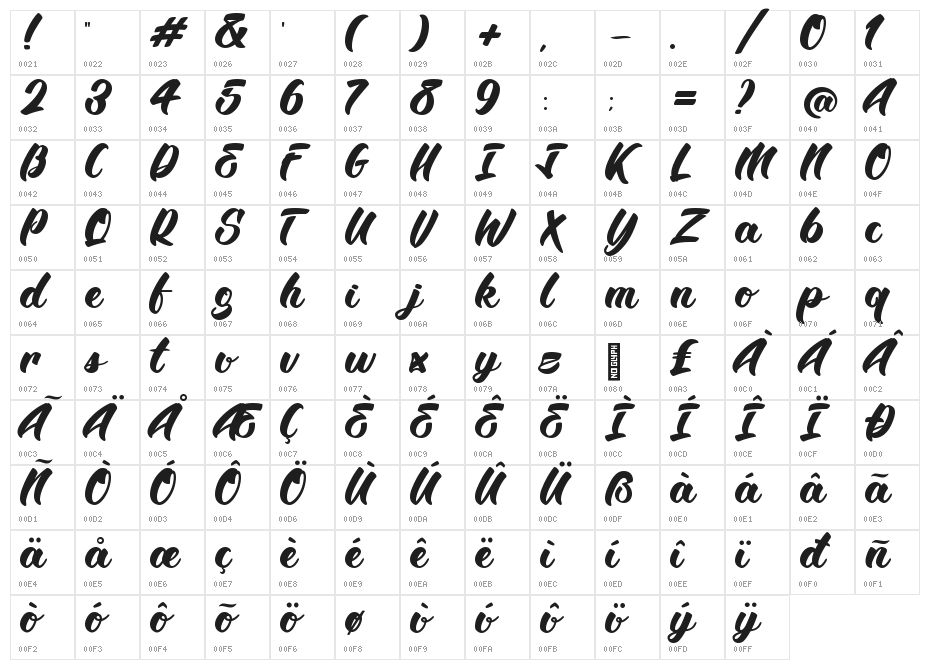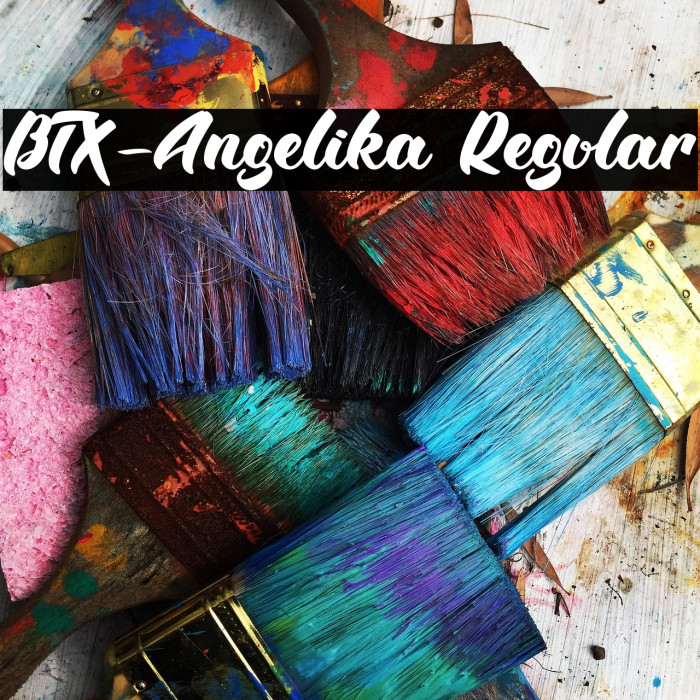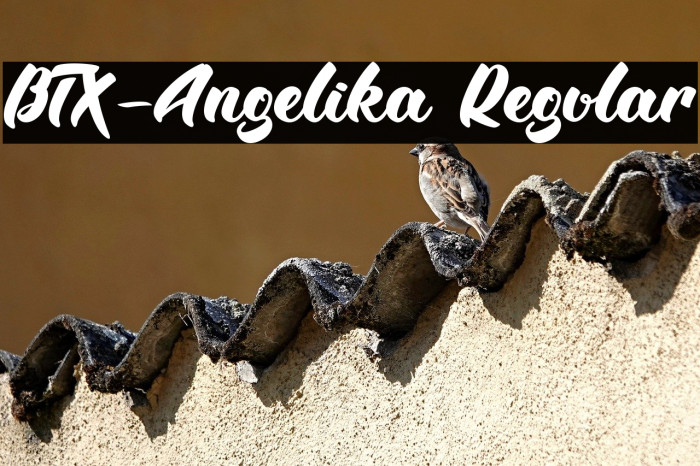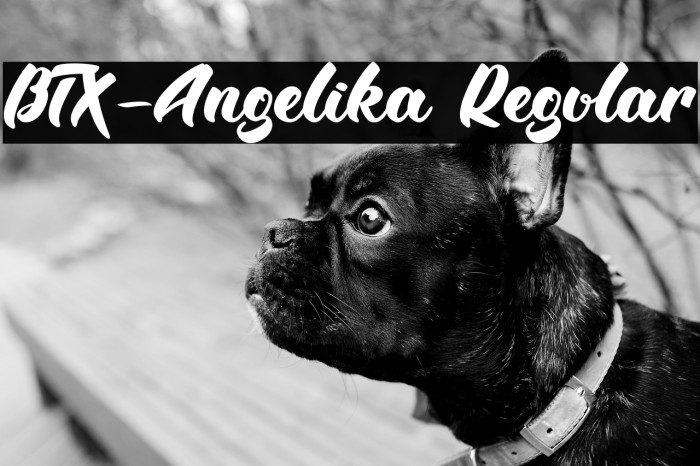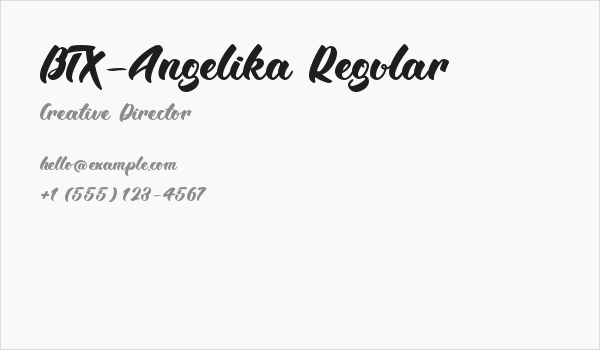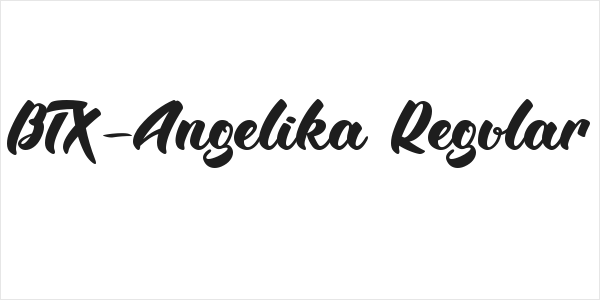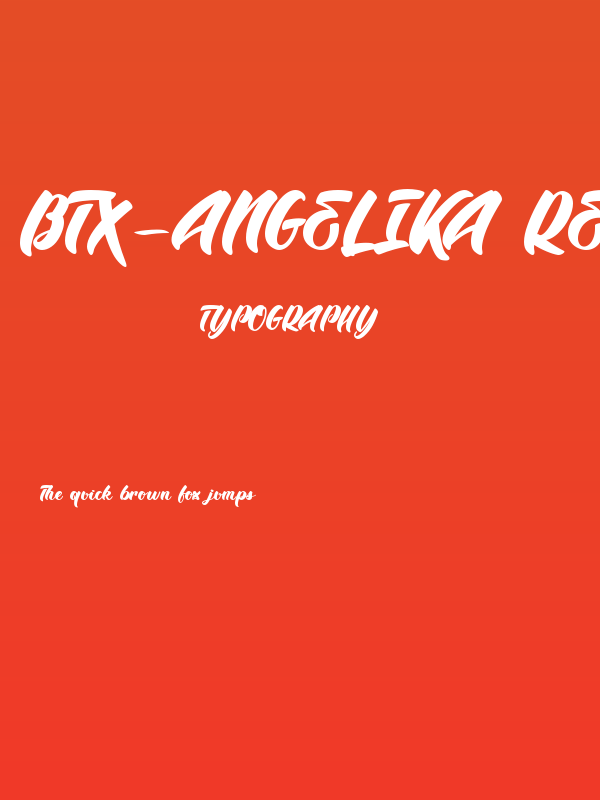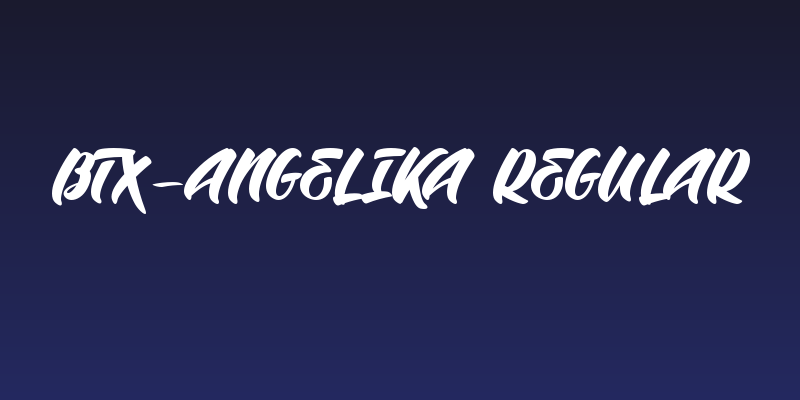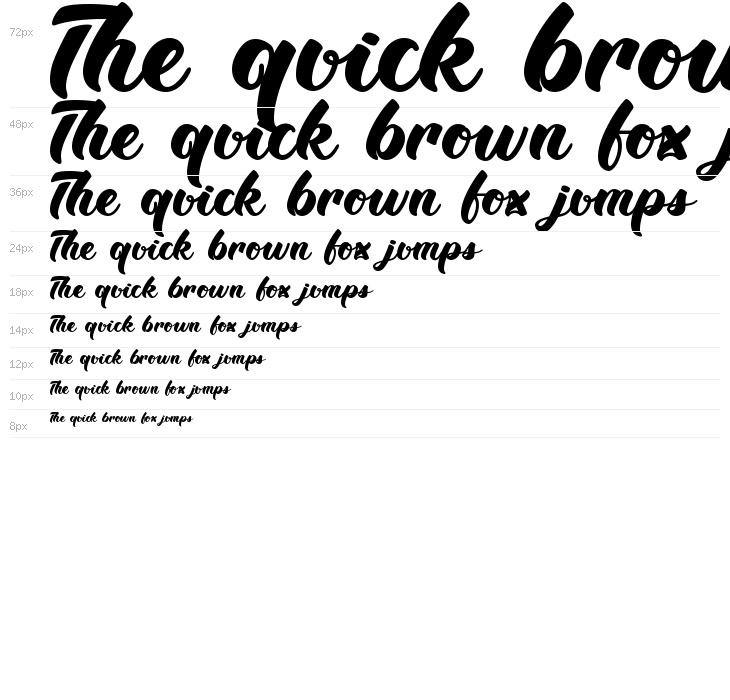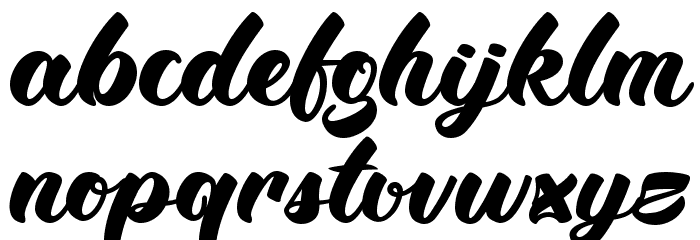
BTX-Angelika Regular Font
BTX-Angelika Regular Description
This font features a bold and expressive script style, characterized by its fluid and dynamic strokes. The letters are connected in a cursive manner, giving it a handwritten feel. The uppercase letters are particularly striking, with dramatic flourishes and a sense of movement. The lowercase letters maintain the same fluidity, ensuring consistency across the typeface. The numerals and special characters are designed to match the overall aesthetic, with similar bold strokes and curves. This font exudes a sense of elegance and creativity, making it suitable for projects that require a personal touch.
Use CaseLogos, Headlines, Invitations
Proposed ProjectsIdeal for wedding invitations, branding, logo design, and creative projects that require a personal, elegant touch.